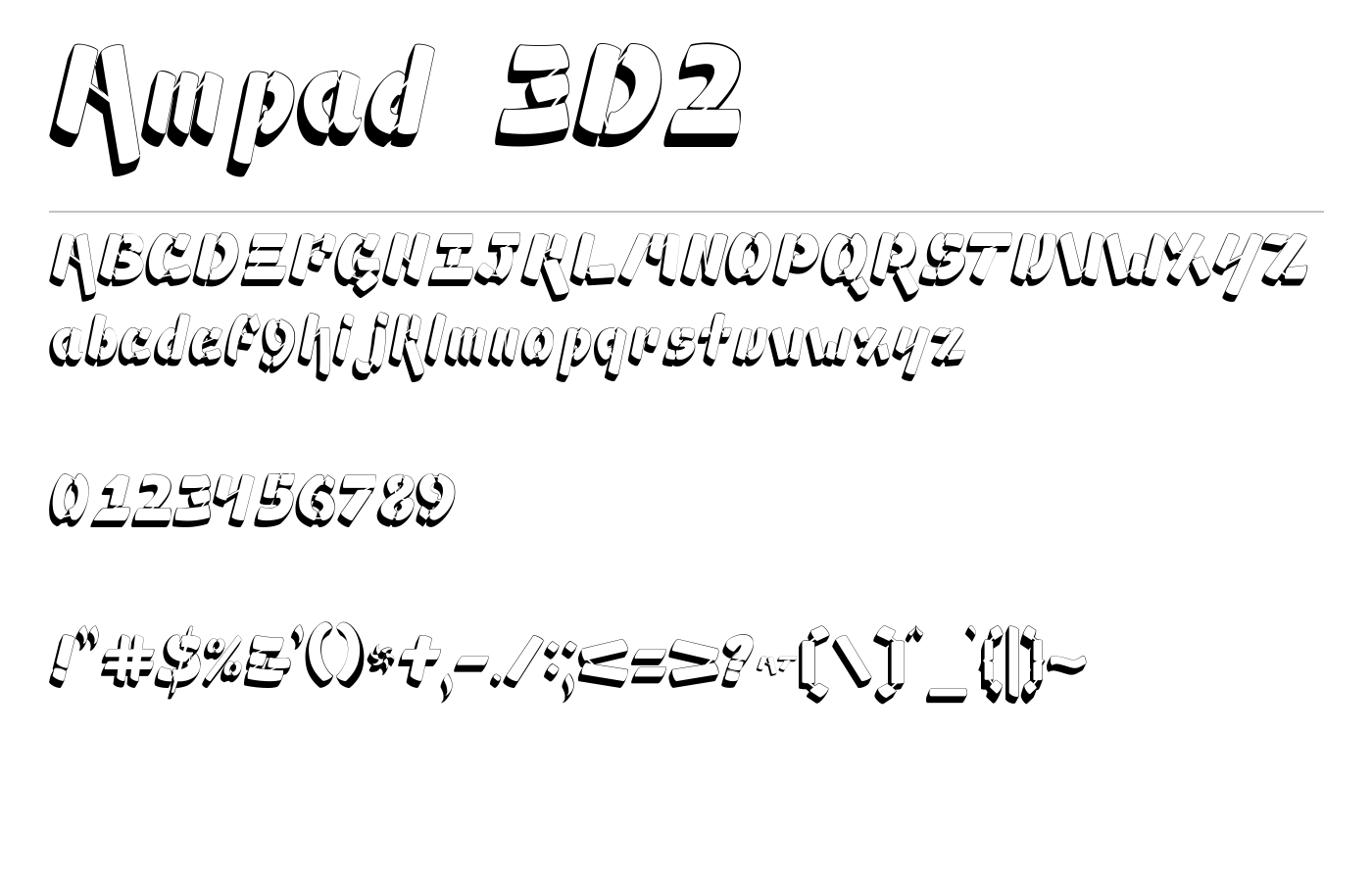
Ampad 3D2 is a playful and dynamic sans serif font featuring a bold, slanted design with strong 3D shading that adds depth and visual interest. Its lively, slightly condensed letterforms and distinctive shadow effect make it perfect for eye-catching headlines, posters, and branding that aims to convey energy and creativity. This font works especially well in contexts where a retro or fun vibe is desired, lending a unique, memorable look to any design.
Ampad 3D2 Font
About Ampad 3D2 Font
| Font family | Ampad 3D2 Font |
| Designer | Gene Gilmore |